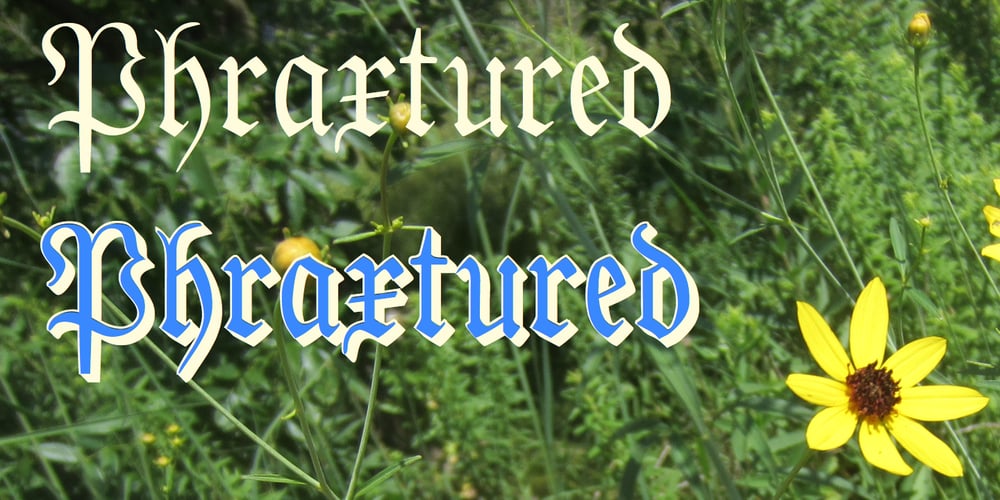
Phraxtured Font Family was designed by Robert Schenk and published by Ingrimayne Type. Phraxtured contains 4 styles and family package options. Phraxtured is a fairly accurate rendition of the letter forms used in an old German-language publication that I found in a trash heap. However, several characters in fraktur, such as the k, y, x, and S, look bizarre to English-language readers, and I have created more comfortable alternatives. The Phraxtured-Deutsch version has the more traditional characters. The ShadowedInside style is designed to be used in layers with the Shadowed style.